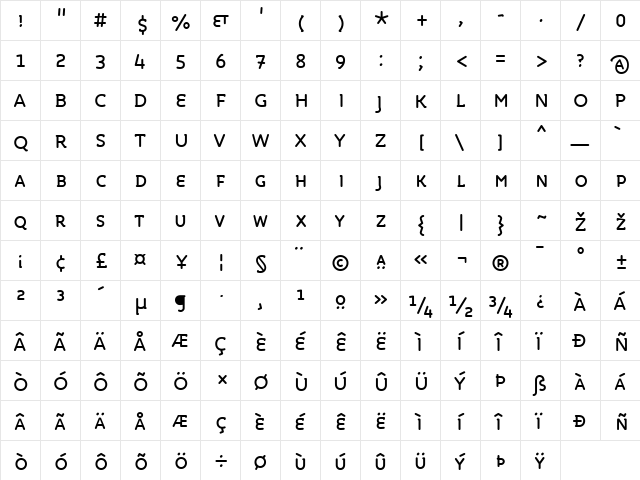
Roice-MediumSC Regular
| Foundry | Alex Scholing, published by FontShop International for the FontFont library |
Design Context for Roice-MediumSC Typeface
Roice-MediumSC offers clean, dependable letterforms without strong stylistic allegiance, making it a practical choice for designers who need flexibility.
Pro Tip: Use Roice-MediumSC in both headline and body roles to test its range before committing to a single application.